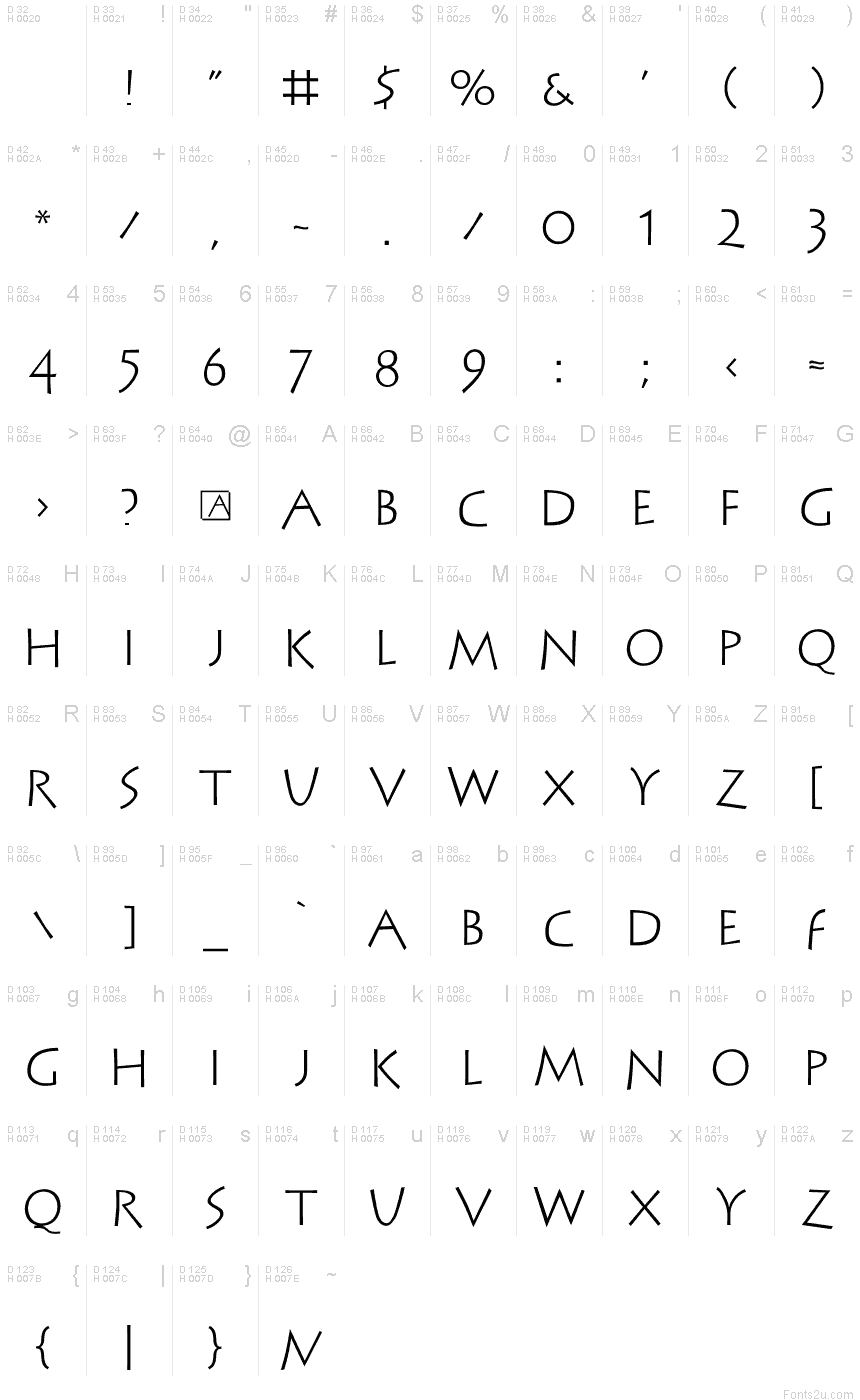
SteinAntik, drawn by Manfred Klein, is a free hand-drawn sans serif with tall, spare letterforms, loose proportions, and an unmistakably uneven line. Its strokes shift gently in width, and the slightly wavering edges resemble marks cut or brushed by hand. The shapes remain open and direct.
That handmade construction can lend museum posters an archaic note, yet it also suits independent fashion branding that favors lean, unconventional lettering. Book covers, gallery programs, and album artwork are equally convincing settings, since the irregular capitals can echo ancient inscriptions, expressive illustration, or rough printed textures.